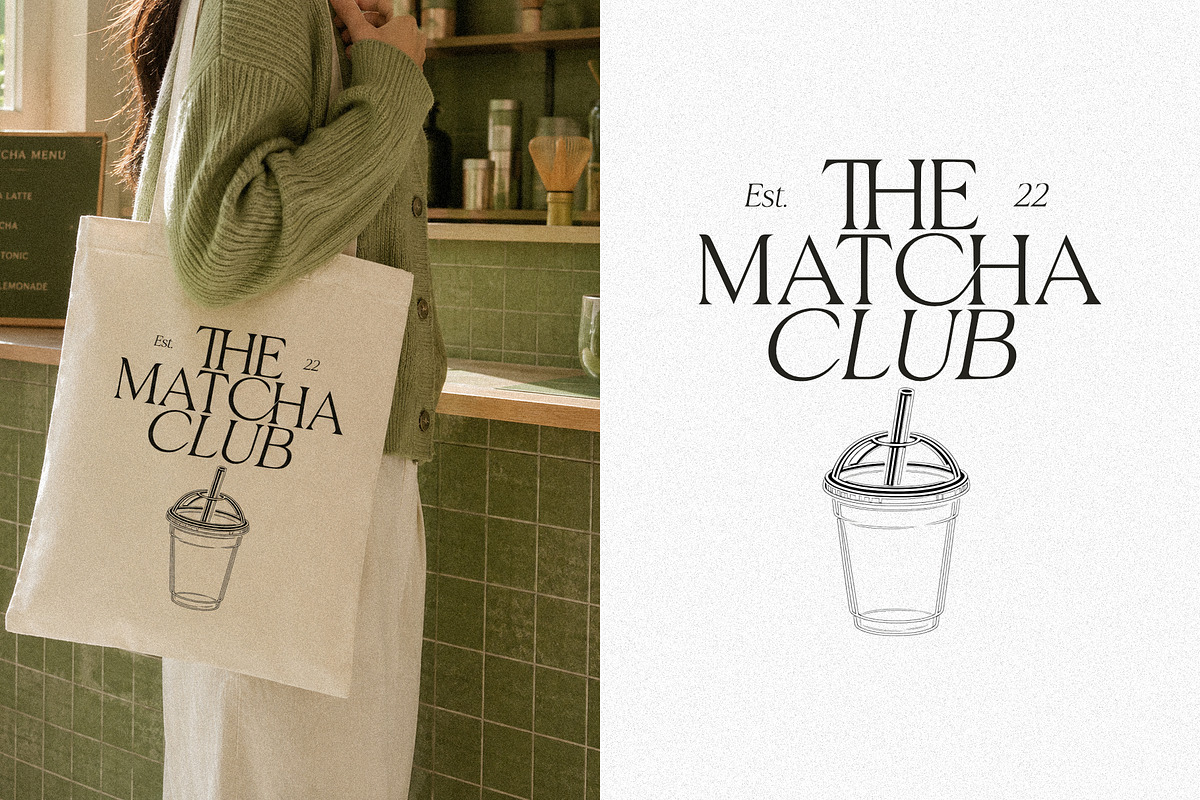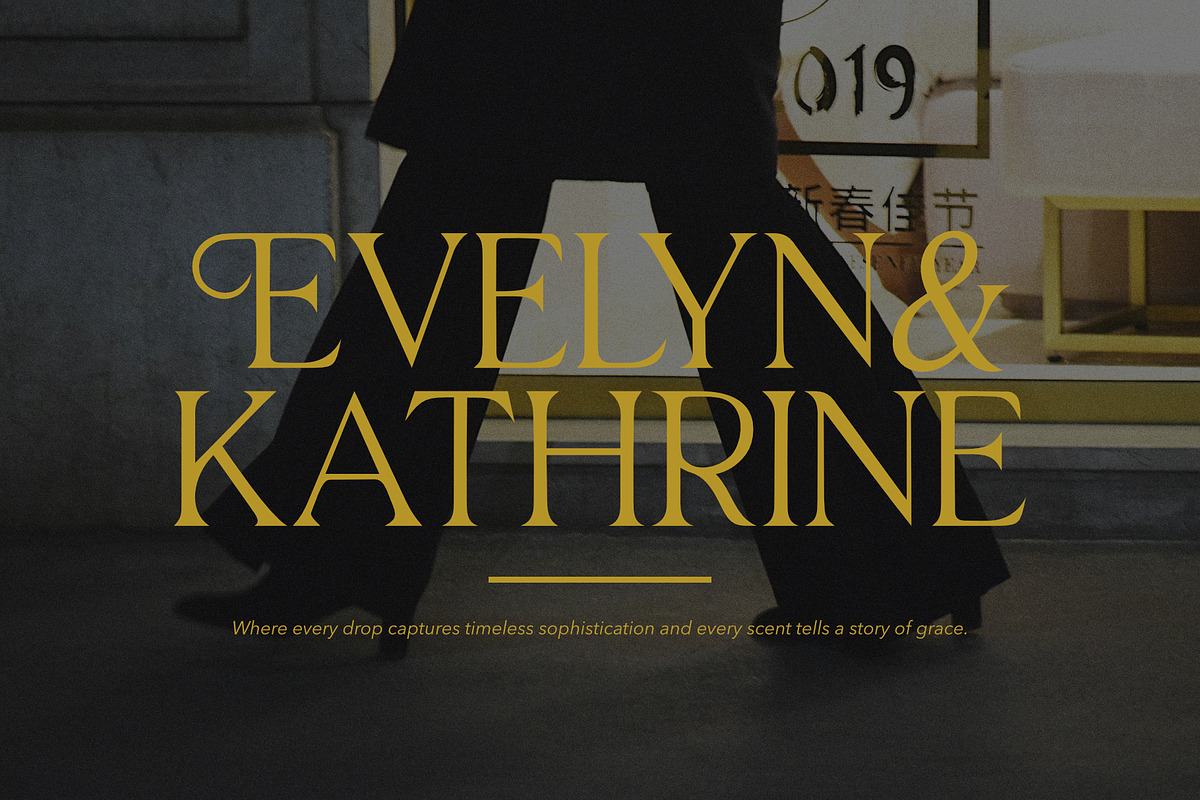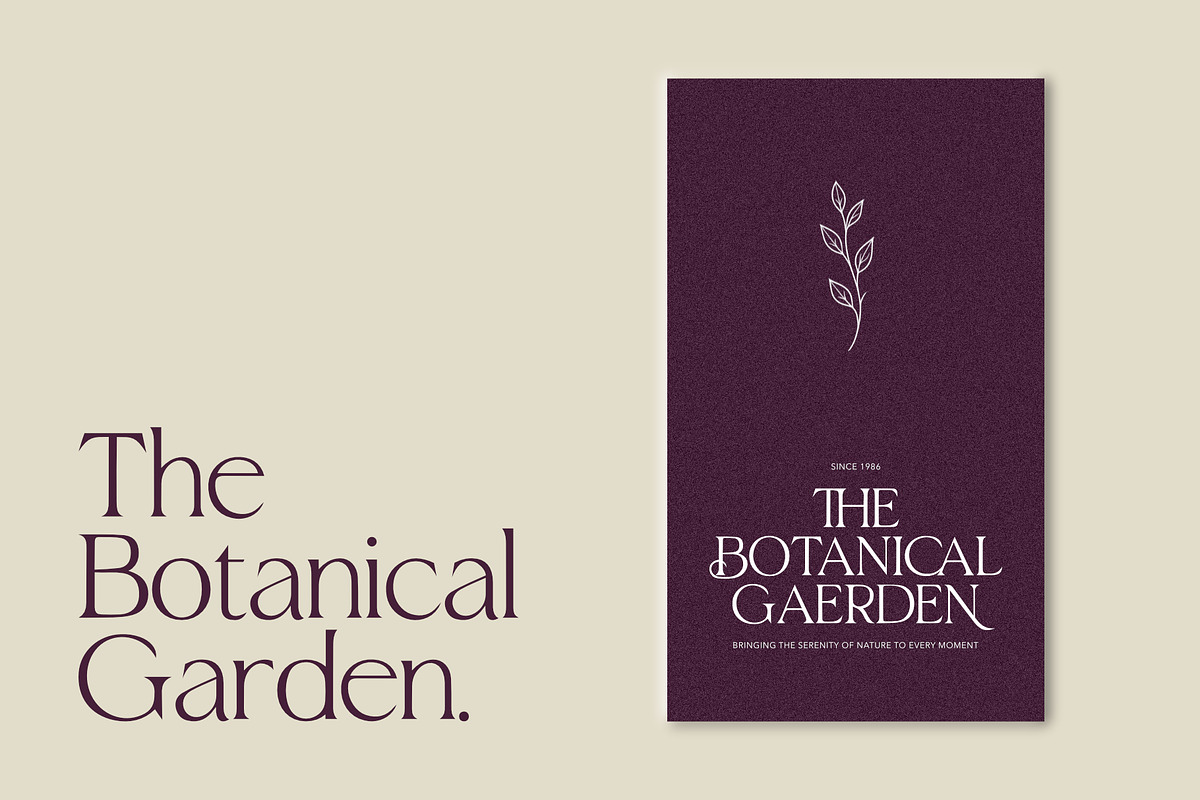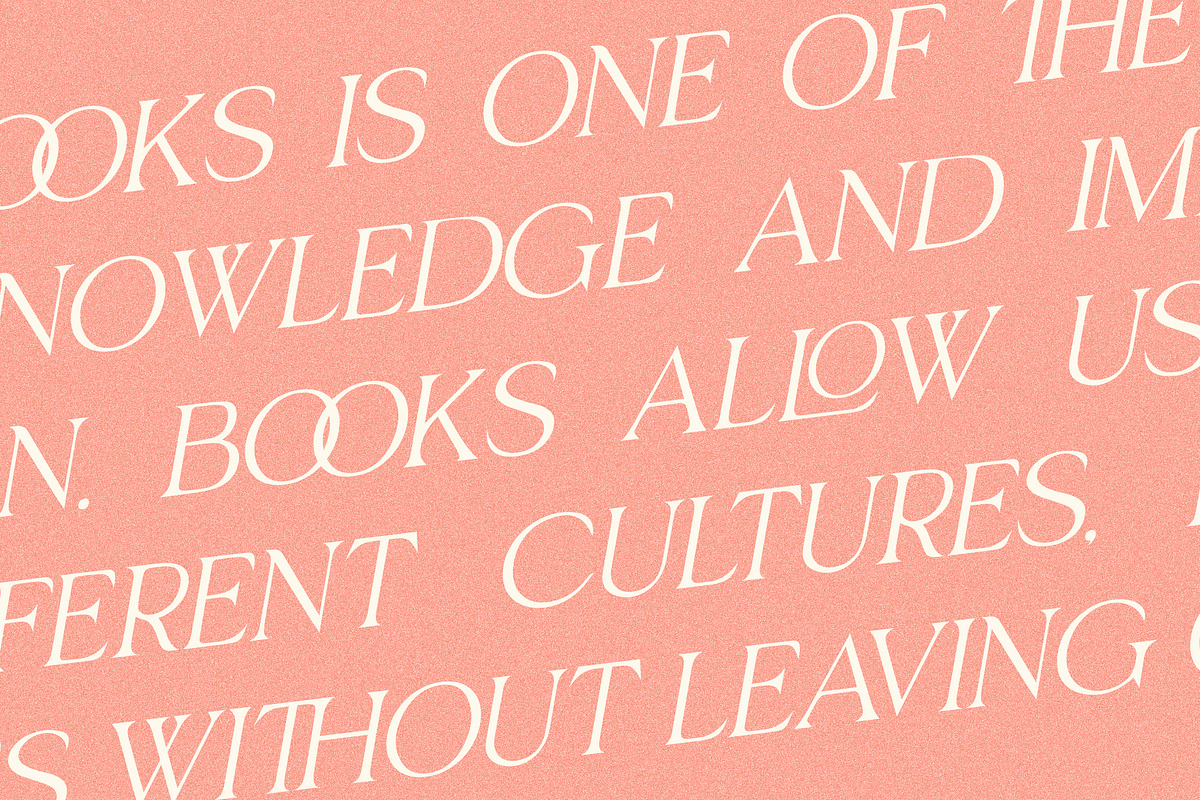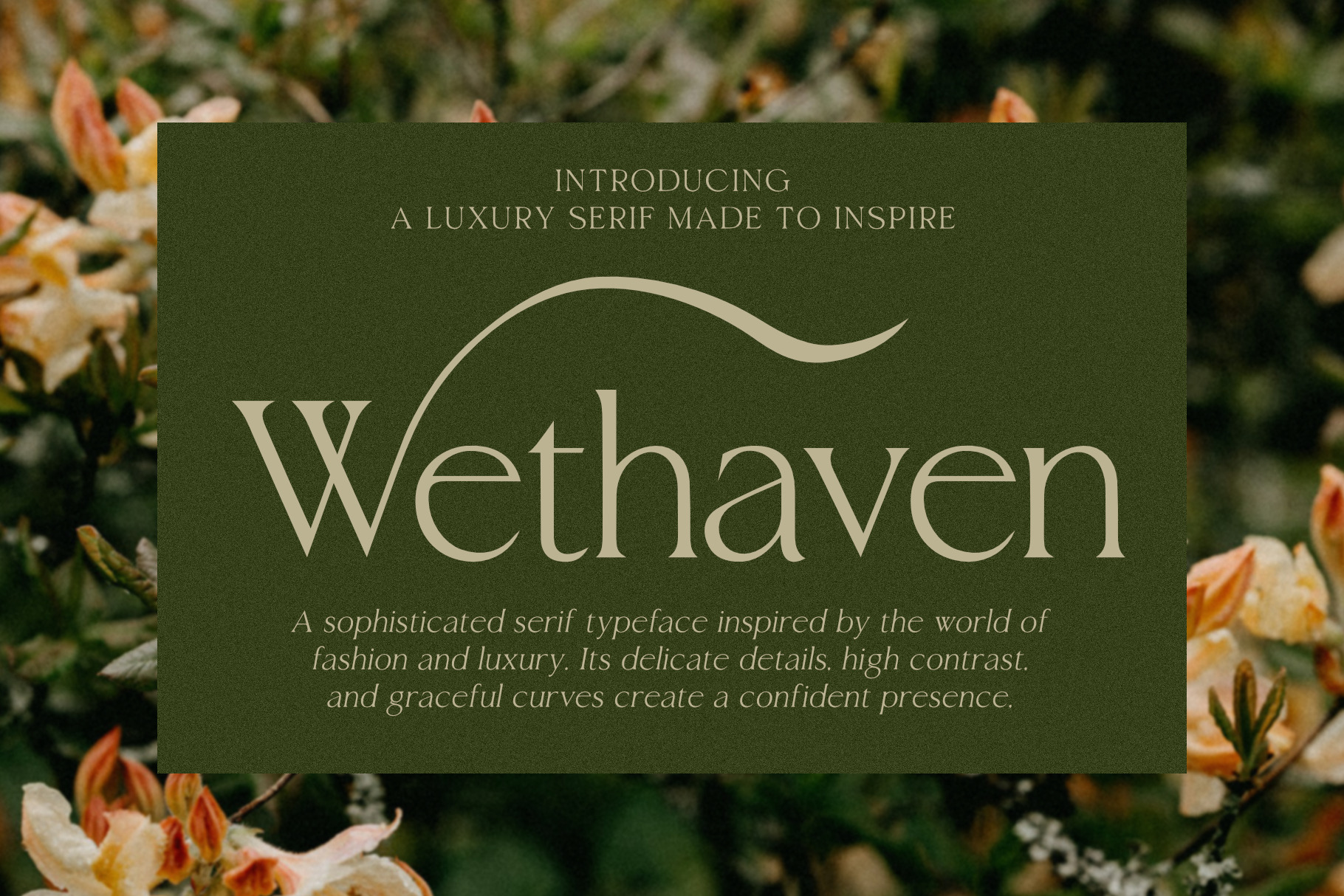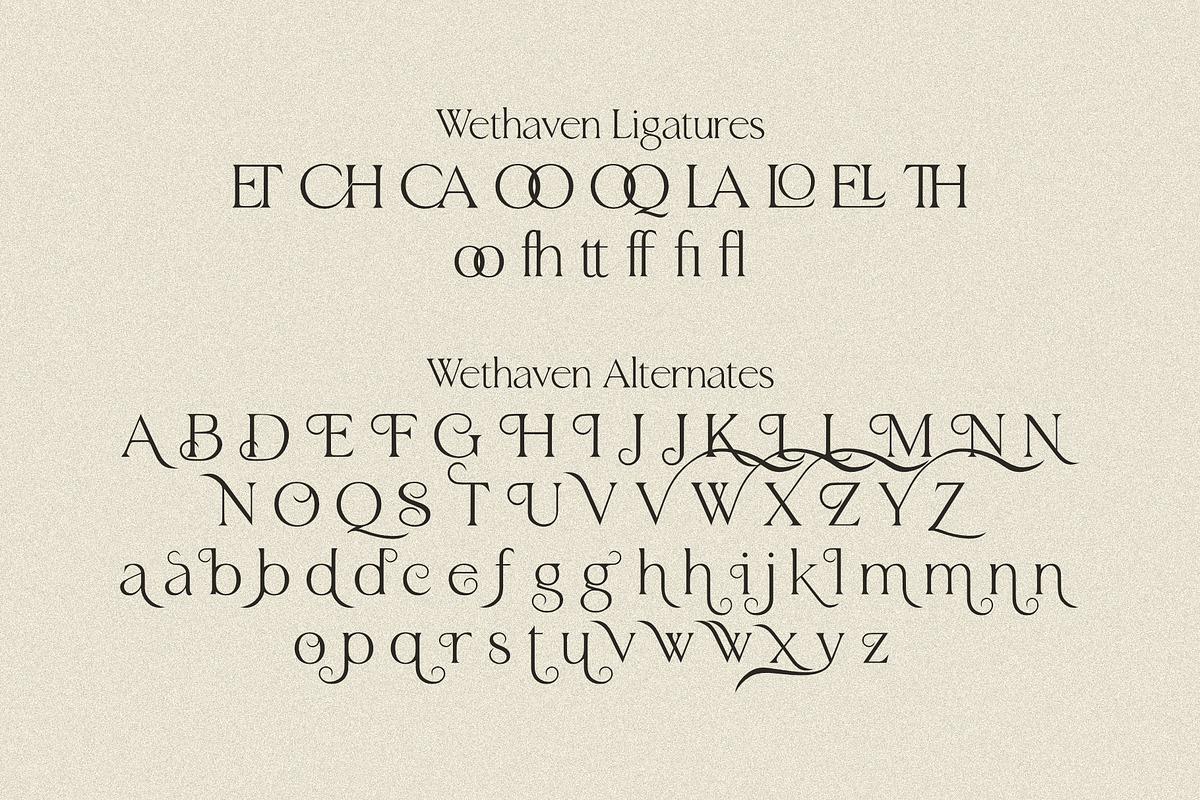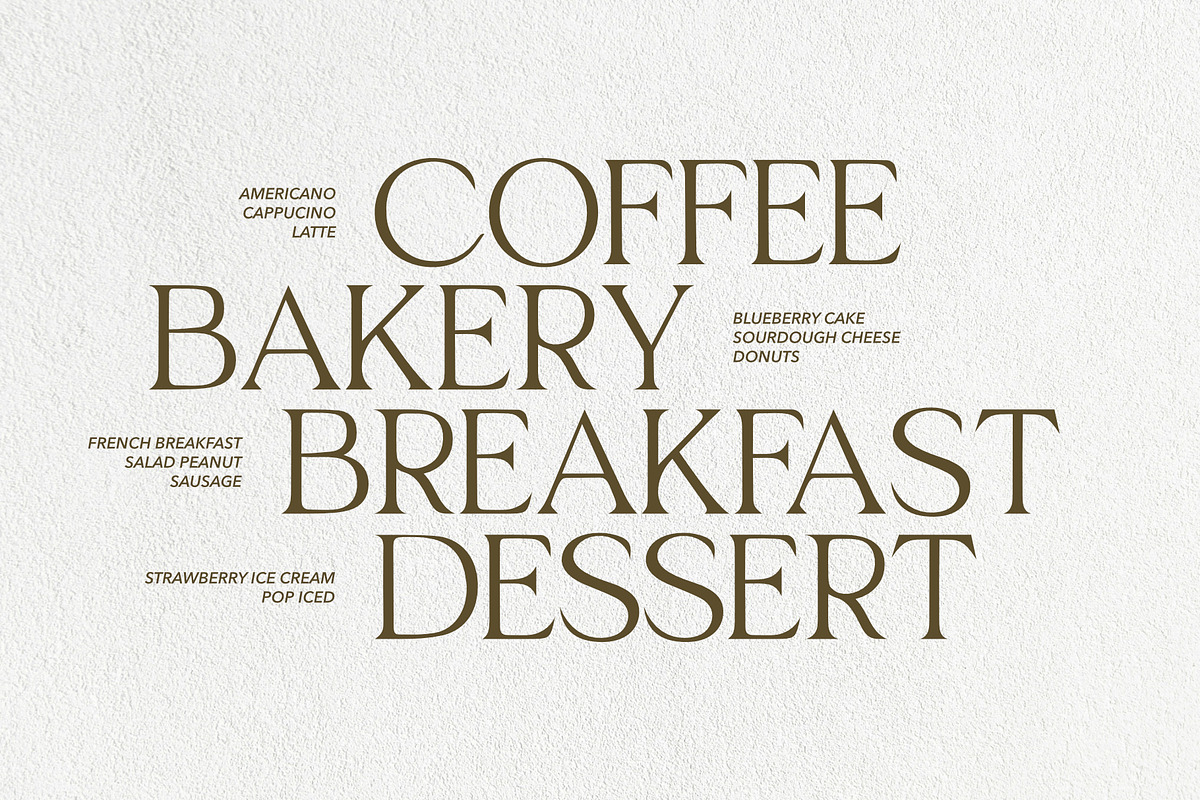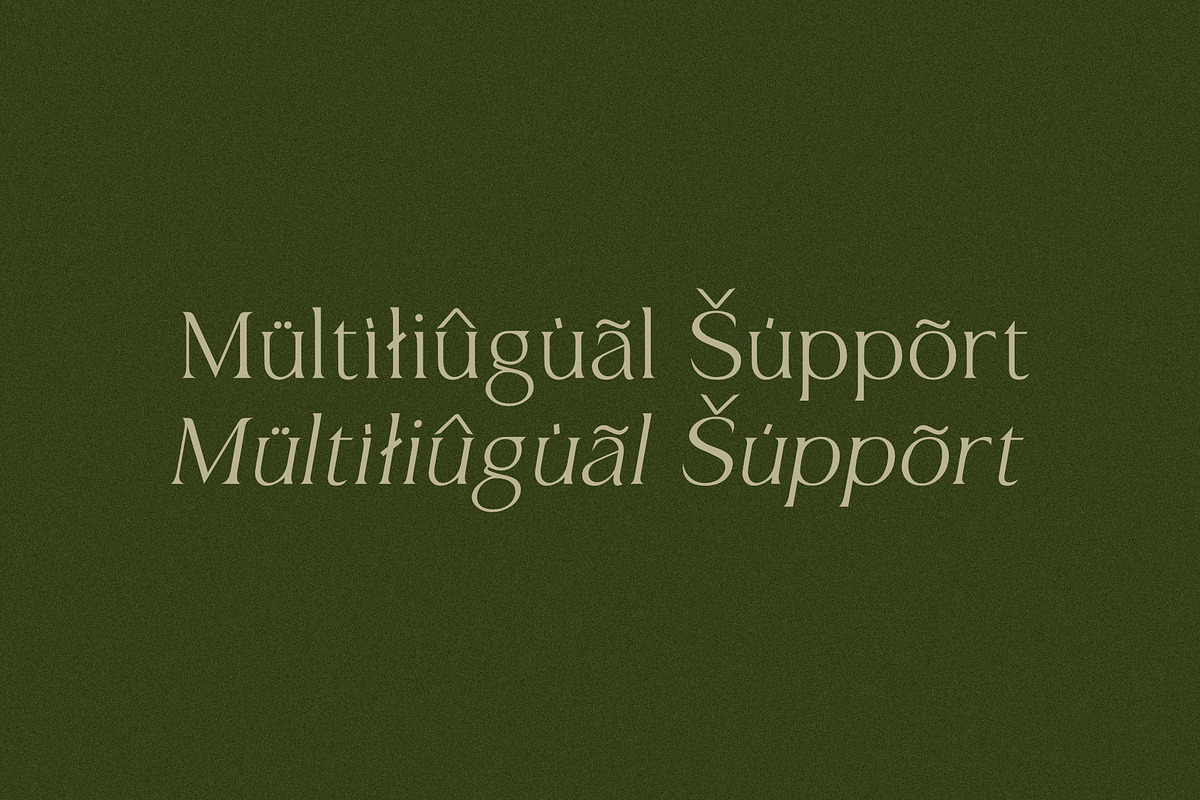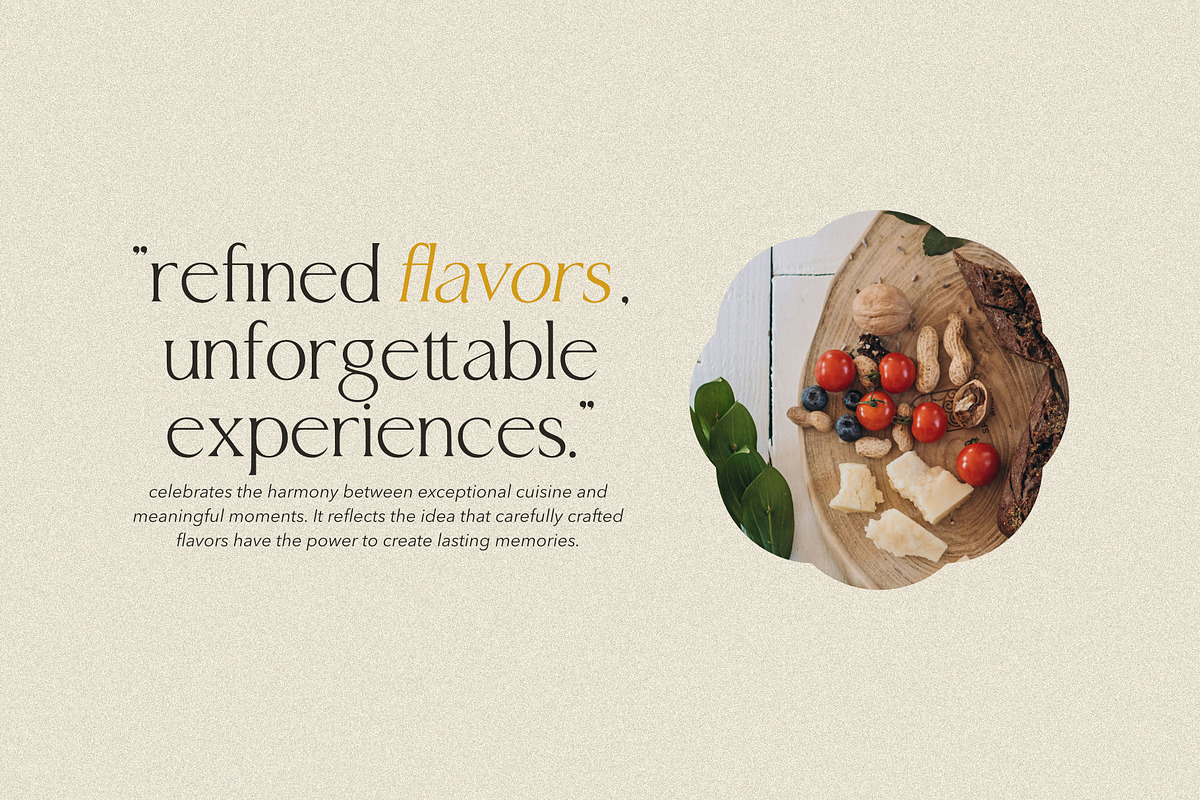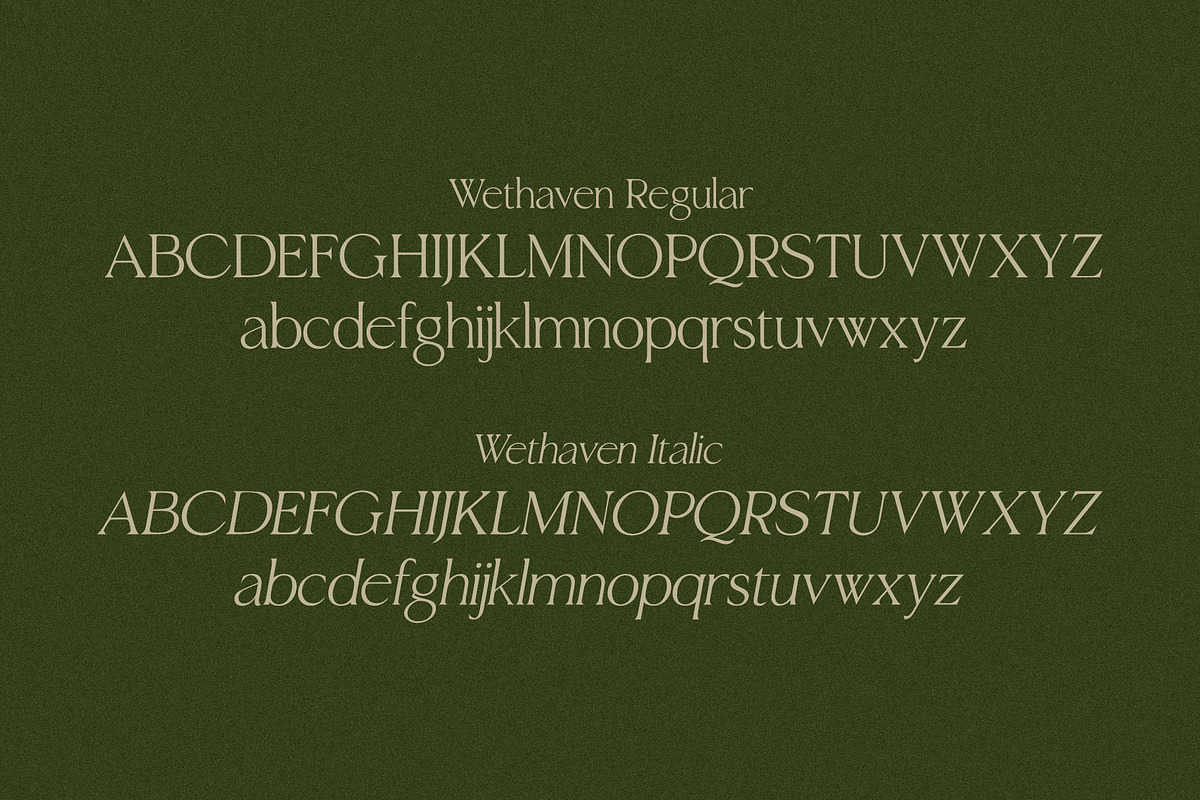
Wethaven – Luxury Serif Font
Wethaven is an elegant luxury serif typeface designed to bring sophistication, timeless beauty, and refined character to every project. Inspired by the world of high-end fashion, editorial design, premium branding, and modern aesthetics, Wethaven features graceful curves, sharp contrast, and beautifully crafted letterforms that instantly elevate your typography.
Whether you're designing luxury logos, branding identities, magazine layouts, packaging, wedding stationery, cosmetics, cafés, restaurants, or social media content, Wethaven delivers a distinctive and memorable visual presence. Its stylish proportions and elegant details make it perfect for creating premium designs that feel both classic and contemporary.
The font shines in large headlines, brand marks, posters, editorial titles, product packaging, and marketing materials where elegance and readability matter equally.
Standard Ligatures
Wethaven is more than just a serif font—it's a statement of elegance, confidence, and luxury, crafted to help designers build memorable brands with timeless appeal.